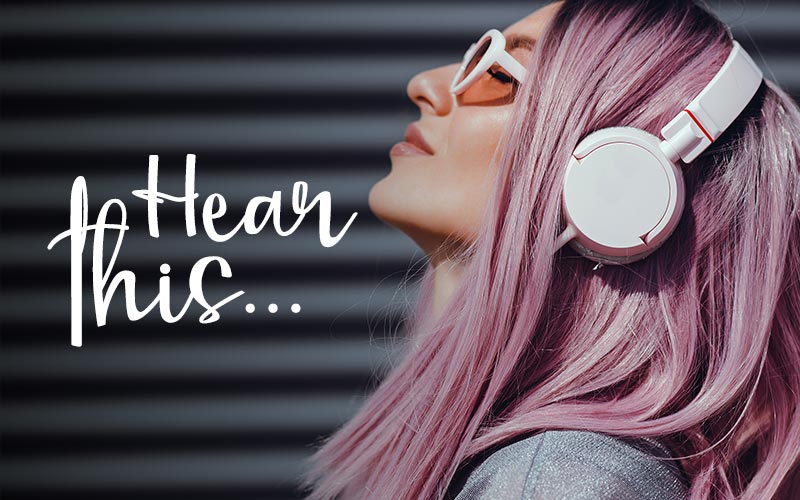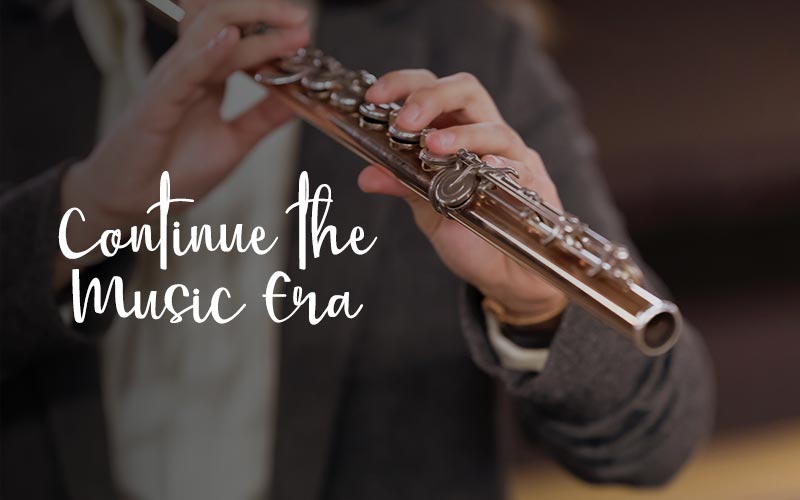
Mellisa Melodious Font Freebie
Introducing Mellisa Melodious, the new font that will bring harmony to your designs.
Mellisa Melodious is a beautiful and elegant script font that is perfect for a wide range of design projects, including logos, invitations, posters, and more.
What makes Mellisa Melodious stand out is its smooth curves and elegant strokes that give it a sophisticated look. With its versatile design, this font can be used for a variety of purposes and is suitable for both personal and commercial use.